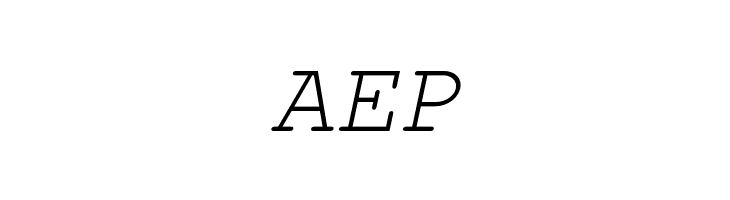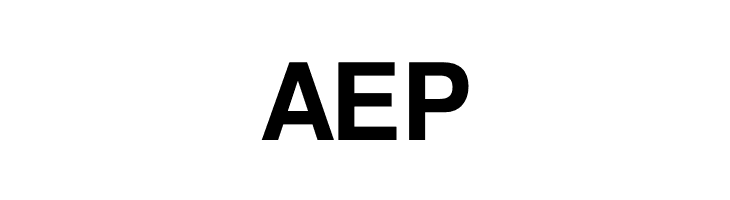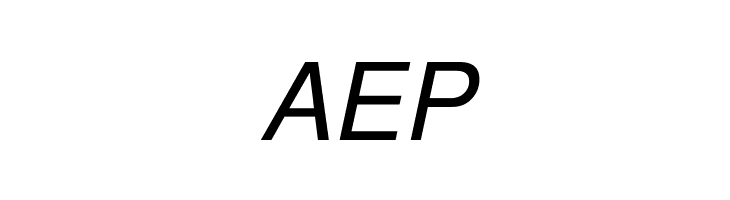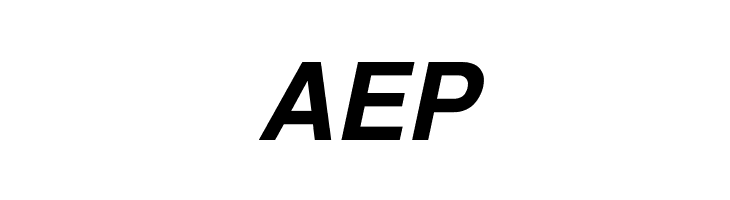
A monospaced oblique font with a modern and dynamic style.
A clean, modern sans-serif font with uniform stroke width and excellent readability.
A bold, clean sans-serif font with a modern and straightforward style.
A bold, oblique sans-serif font with a modern and dynamic style.
A modern, oblique sans-serif font with a sleek and dynamic style.
A classic serif typeface with elegant, traditional letterforms and moderate contrast.
A bold, classic serif font with strong, authoritative strokes.
A bold, italic serif font with a classic and elegant style.
An elegant serif font with italic styling, perfect for classic and sophisticated designs.
A futuristic, dot-based font with a tech-inspired, geometric design.